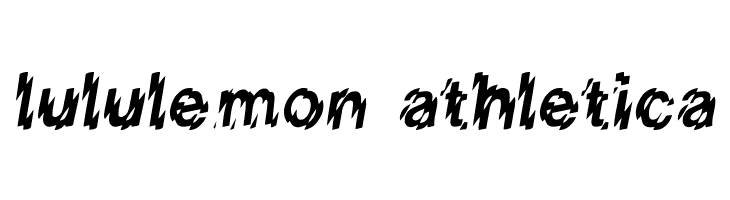
Doctor Oregon Font
- Font: Doctor Oregon
( Fonts by Spork Thug Typography - Josh Wilhelm - www.lifewithouttaffy.com/taffy/blog )
A playful and bold font with rounded edges and a whimsical style.